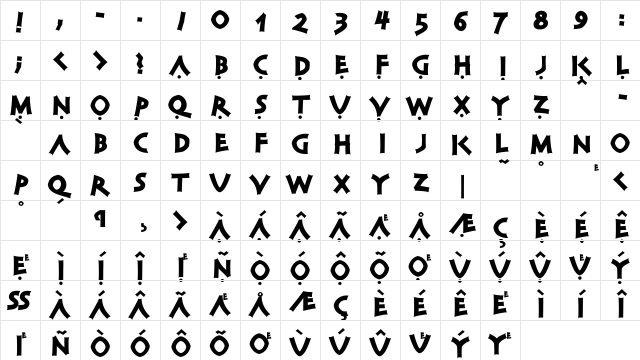
AIClassiCaps Regular
Design Context for AIClassiCaps Typeface
AIClassiCaps wears its vintage influences proudly, with letterforms that recall mid-century signage, classic packaging, and nostalgia-driven design.
Font Pairing: Combine AIClassiCaps with a simple slab or neutral sans — period-accurate companions reinforce the vintage feel without competing for attention.
Pro Tip: Lean into AIClassiCaps's period character by pairing it with aged paper textures, muted colour palettes, and vintage illustration styles.